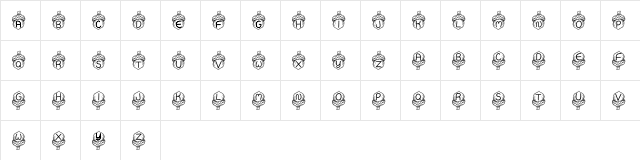
JI Acorn Regular
Design Context for JI Acorn Typeface
JI Acorn is a composed and adaptable typeface that performs quietly and consistently across a wide range of design contexts.